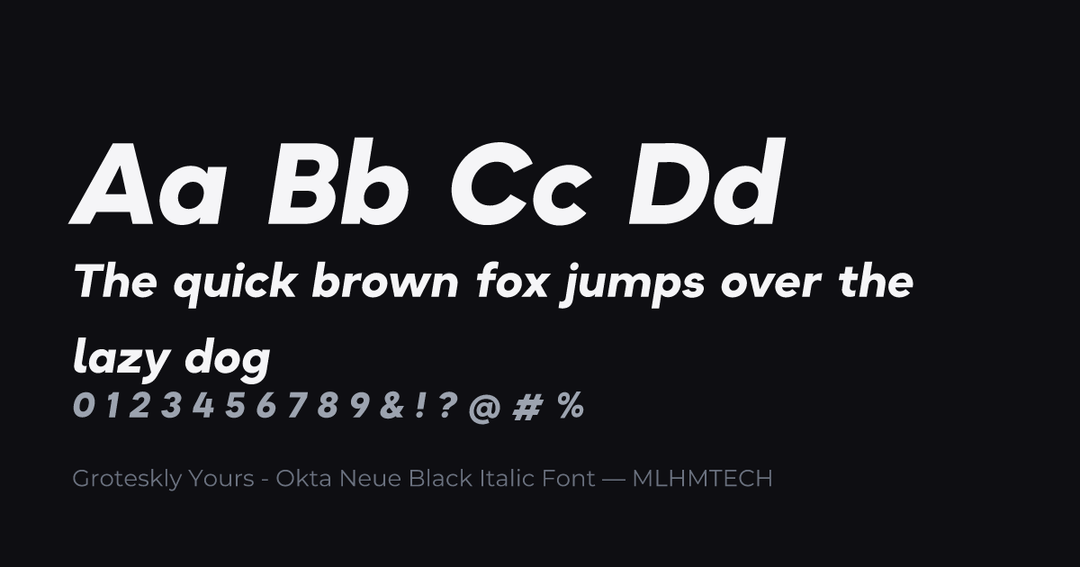
Groteskly Yours - Okta Neue Black Italic Font
A heavy black italic grotesk sans serif from Groteskly Yours, built for loud, high-impact headlines. Ideal for YouTube thumbnails, posters and bold branding.
Okta Neue Black Italic is the heaviest, most aggressive cut of the Okta Neue grotesk family. The slanted italic angle plus the black weight gives you maximum visual punch in a single line, which is exactly what thumbnail text needs to survive a crowded feed.
Use it for short, punchy words rather than long sentences. Pair it with a clean neutral sans for supporting text so the black italic stays the loudest element in the composition.